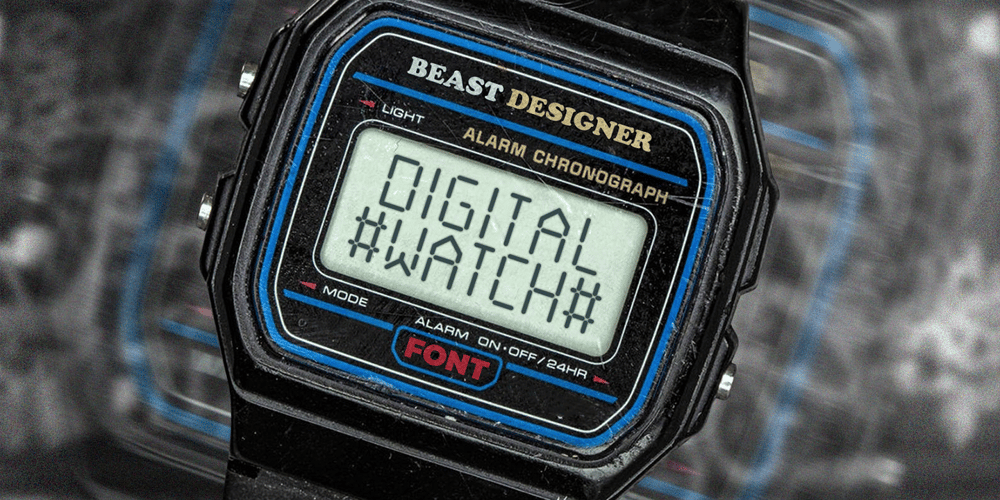
Digital Watch Font Family was designed by Mohammed Lamjidi and published by Beast Designer. Digital Watch contains 1 styles and family package options. Digital Watch Font is a typeface designed specifically for use in digital alarm clocks and other timekeeping devices. It is characterized by clear, legible numerals and symbols, and a modern, minimalistic design that is easy to read at a quick glance.